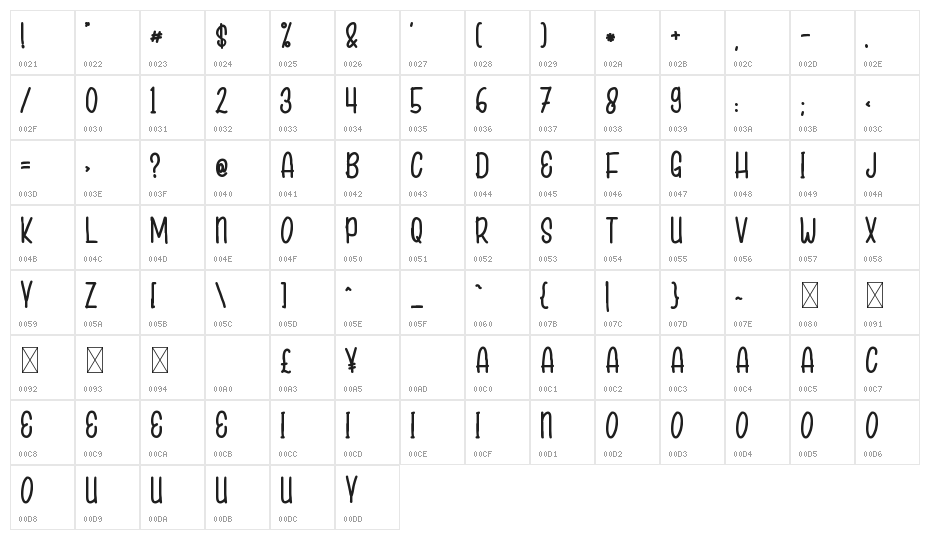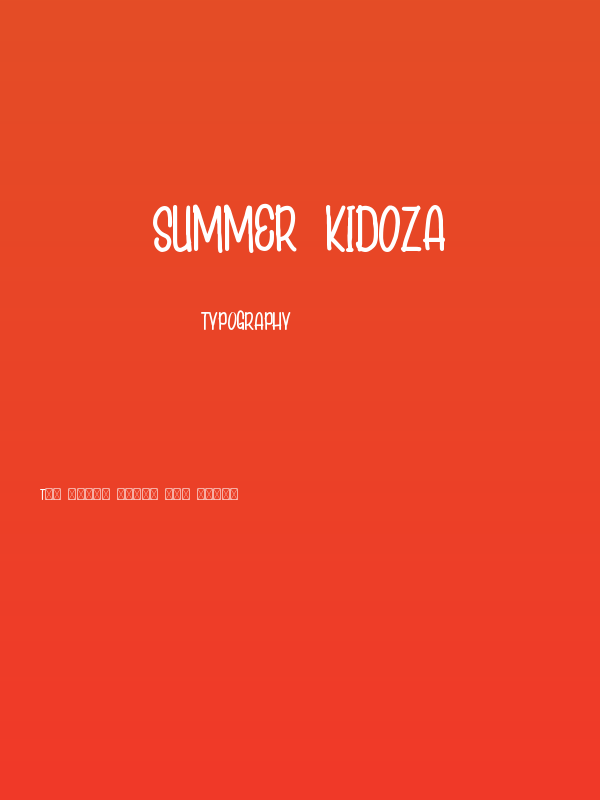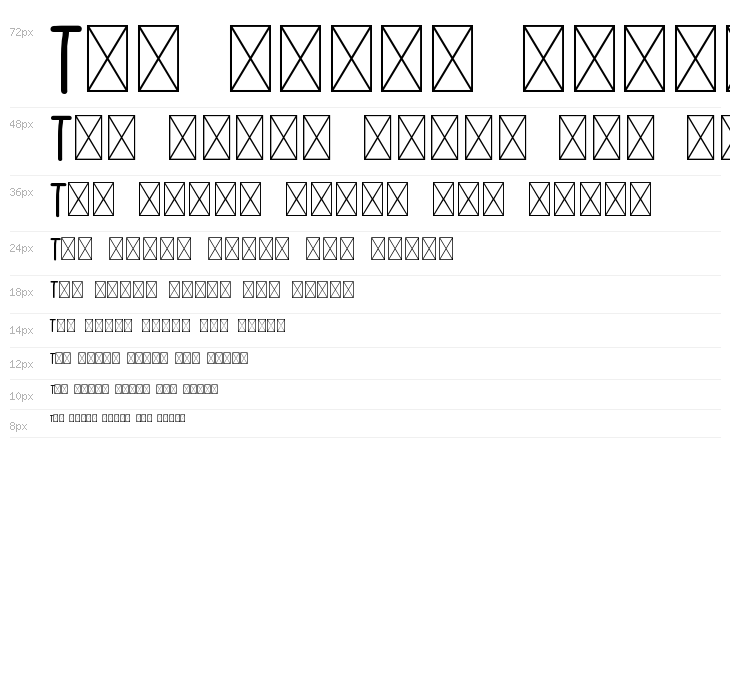
SUMMER KIDOZA Font
SUMMER KIDOZA Description
This playful and energetic font features a handwritten style with bold, rounded strokes that convey a sense of fun and creativity. The characters are slightly irregular, adding a personal touch and making it ideal for projects that require a casual and approachable feel. The uppercase and lowercase letters maintain a consistent style, with a slight slant that enhances the dynamic appearance. The numbers and special characters are well-integrated, ensuring versatility across various uses. The overall design is clean yet whimsical, making it suitable for a wide range of creative applications.
| Proposed Projects | Ideal for children's books, playful branding, greeting cards, and creative posters. |